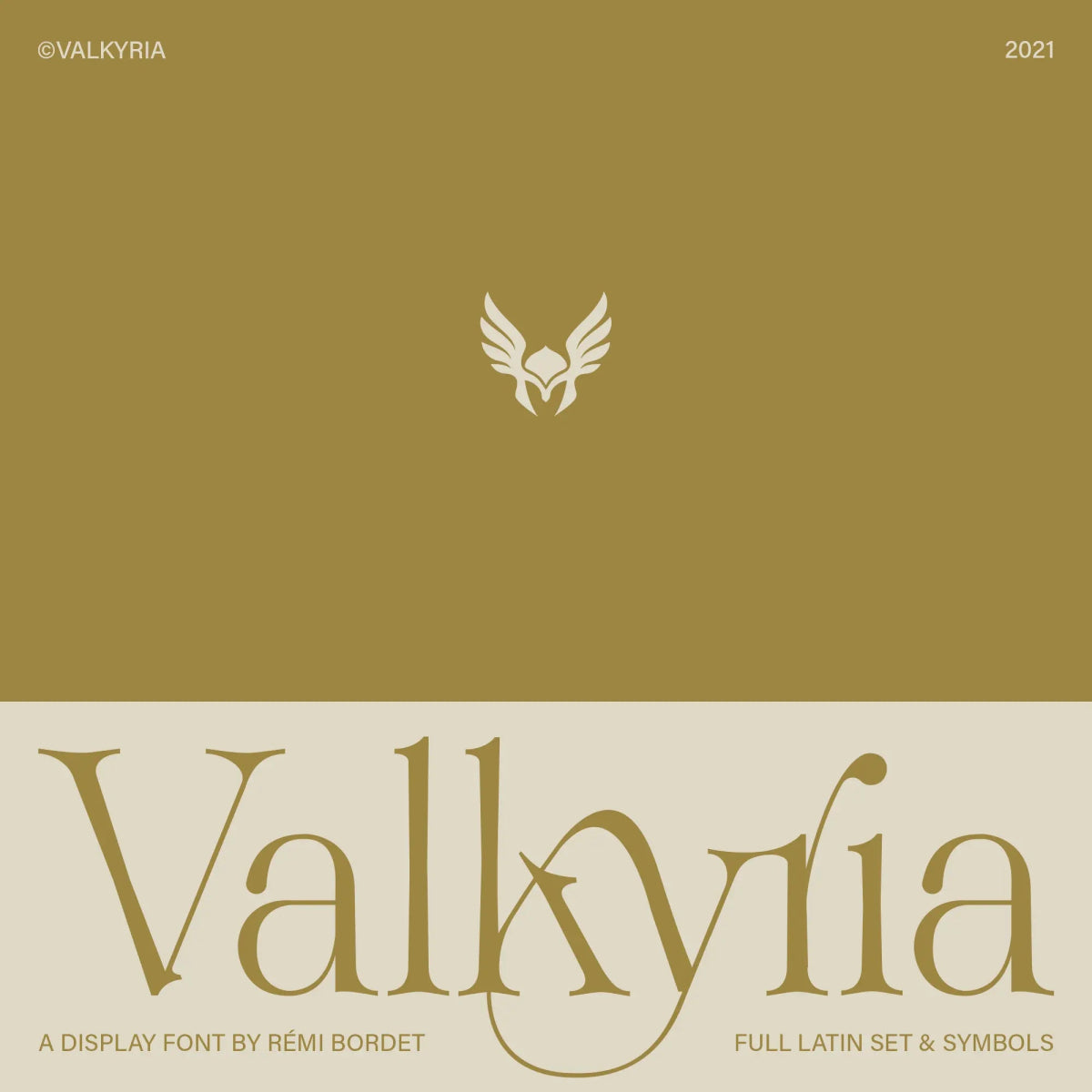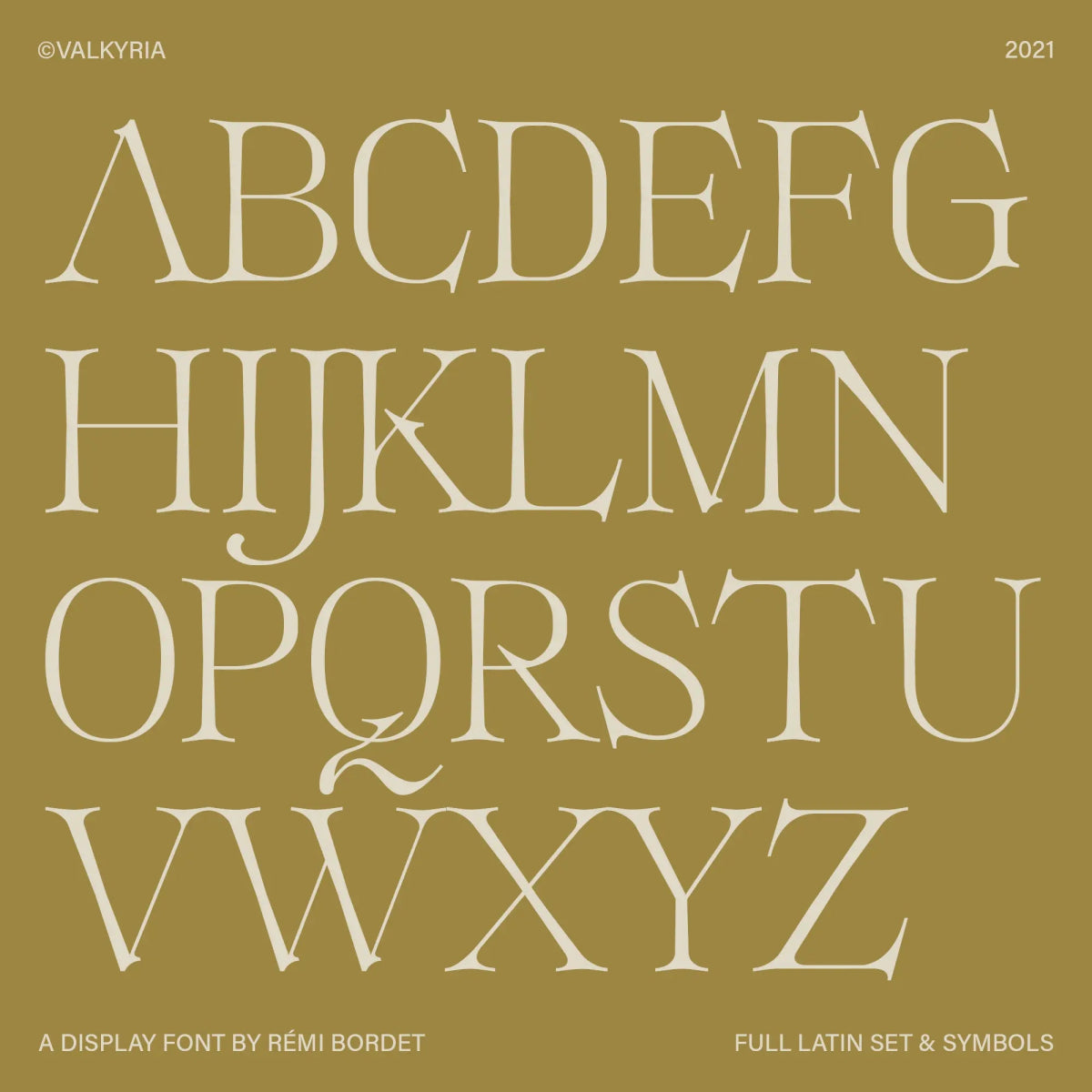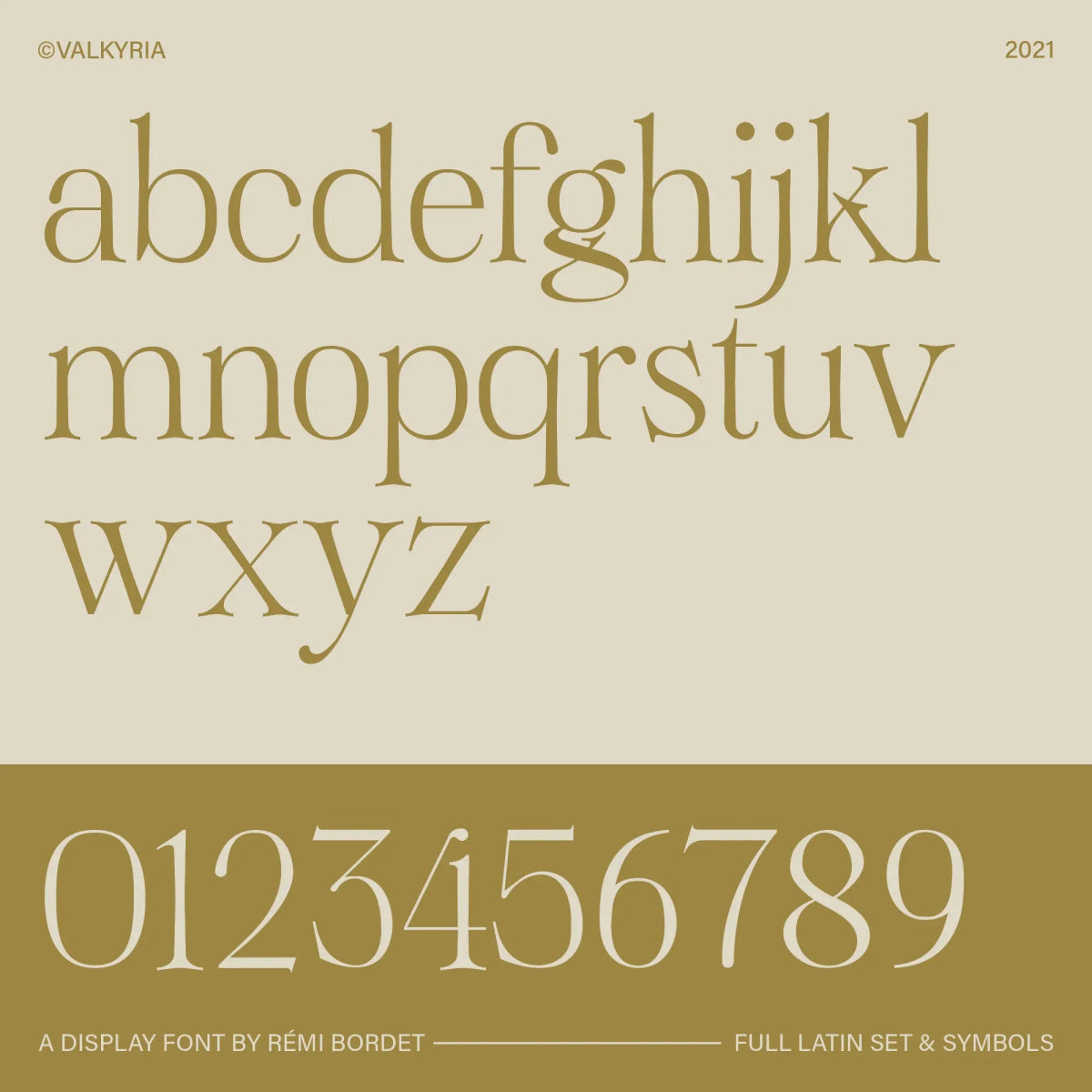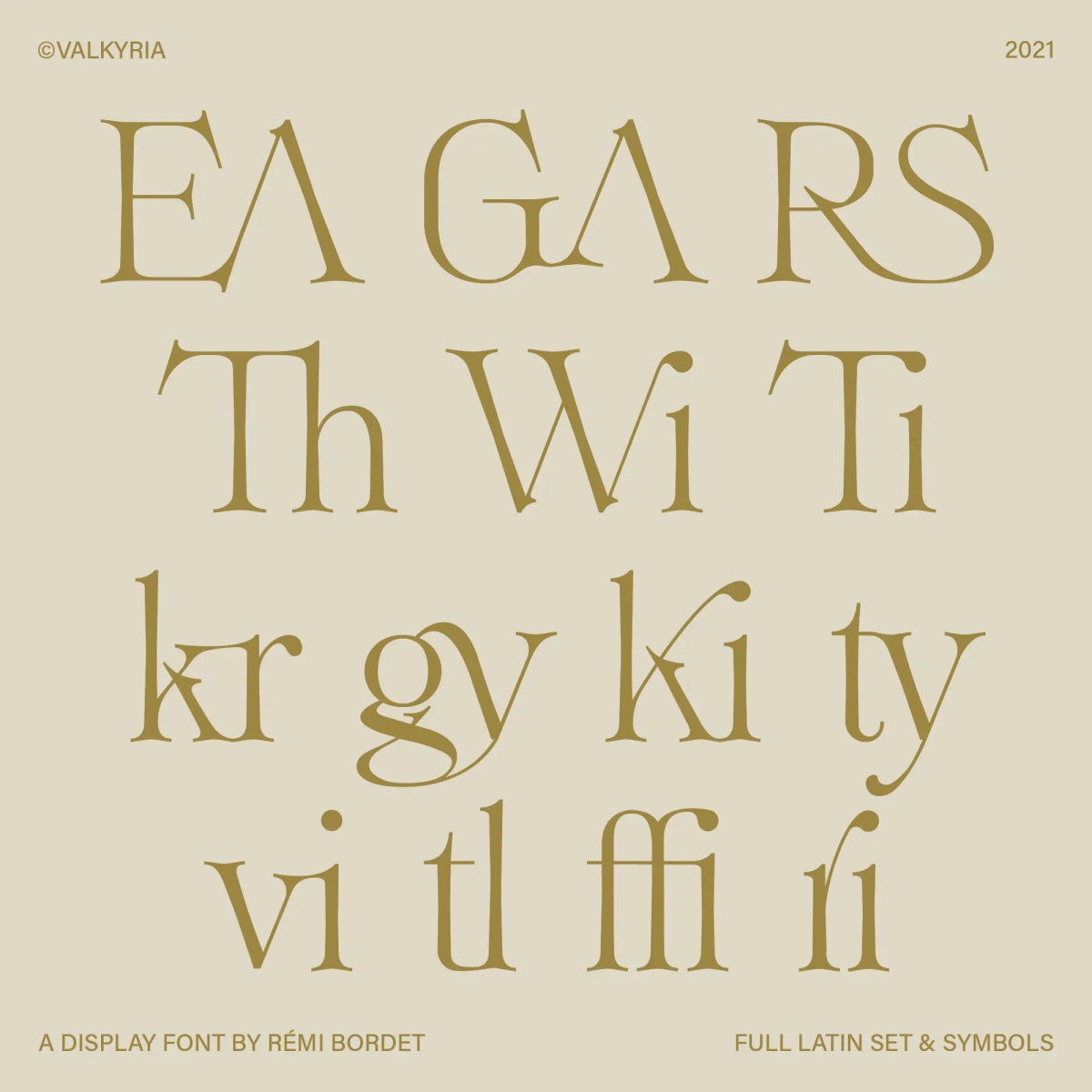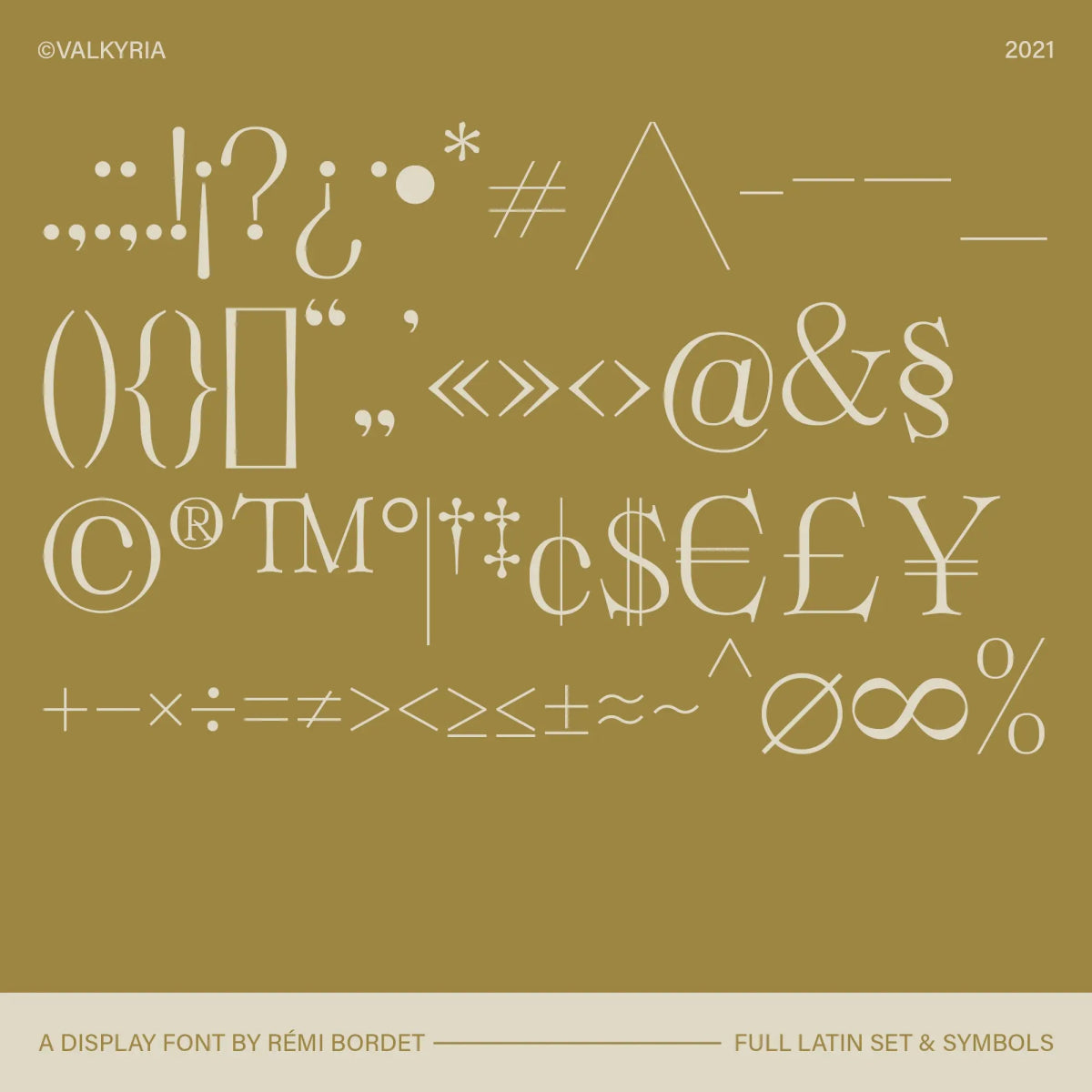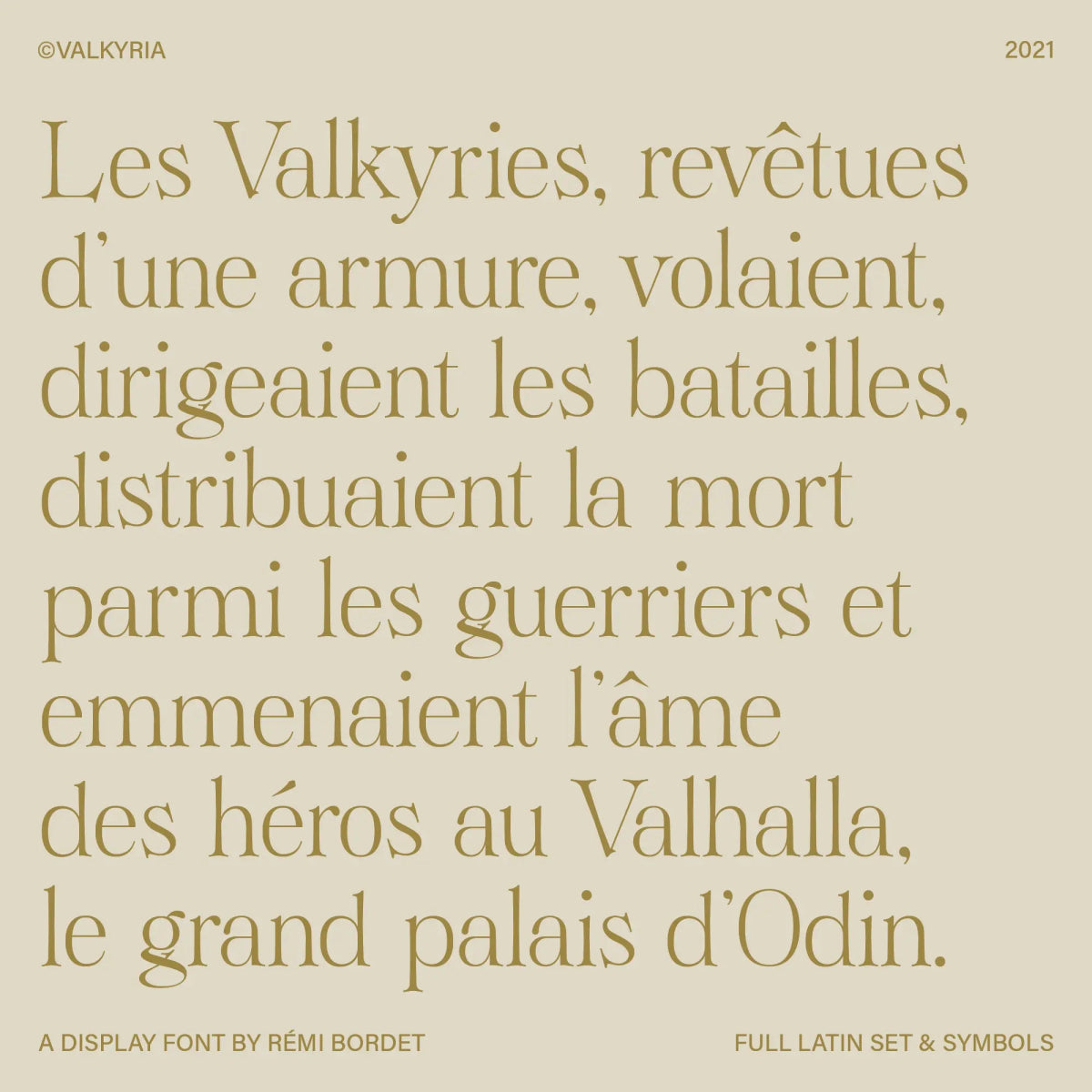
Valkyria Display Font
by Rémi Bordet
Valkyria is an elegant display serif font inspired by classical letterforms and mythological drama. Its sharp serifs, subtle flares, and timeless proportions make it perfect for fantasy titles, historical themes, luxury branding, and epic editorial spreads.
Font Features
• Full uppercase Latin alphabet
• Full set of numbers and punctuation
• Dozens of original ligatures and alternate glyphs
Rémi Bordet
Rémi Bordet is a french graphic and type designer and artist who creates bold, minimalist posters combining impactful imagery and typography. His work highlights contradictions, both aesthetically and symbolically speaking, through stylistic visual metaphors that blend brutalist aesthetics with emotional depth.